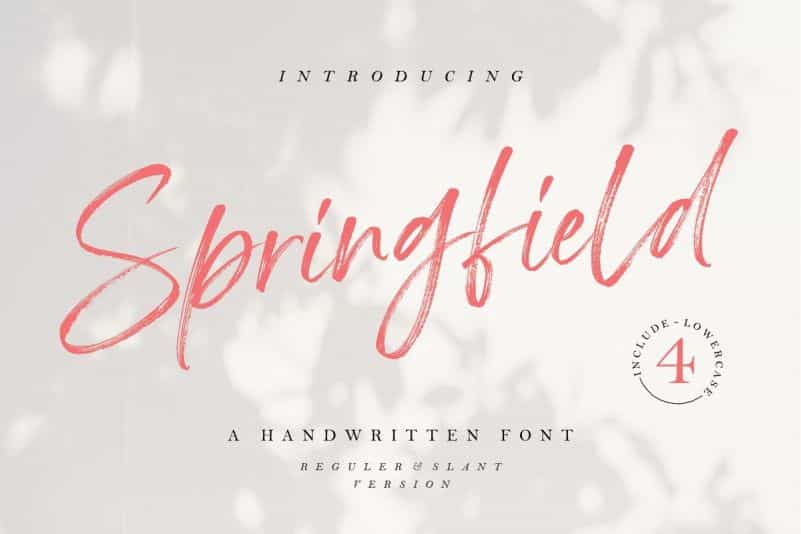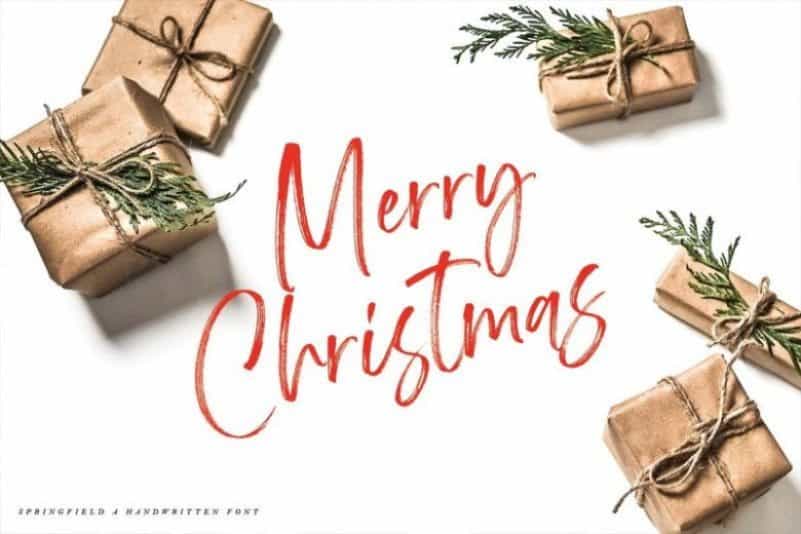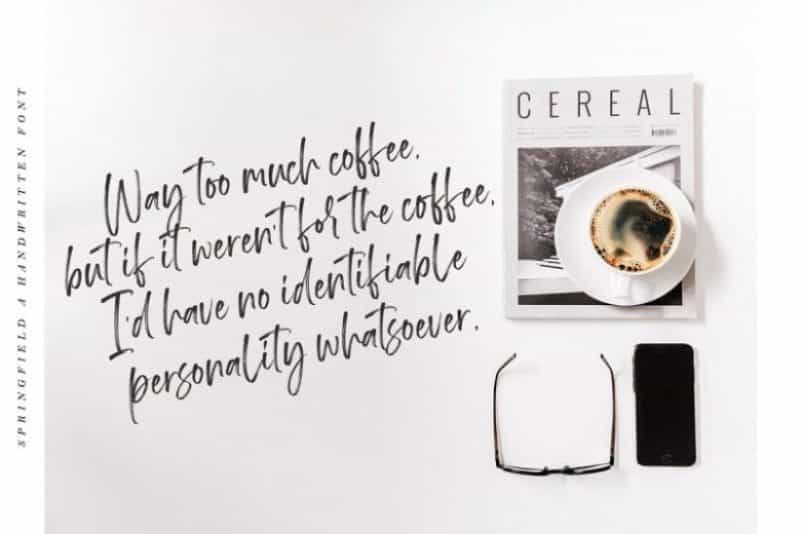
The font that is used in this post is called Springfield Font and it is developed and distributed by Megi Satyo Widodo. It is a handwritten font with a firm texture element, and a more textured feeling than the previous two fonts. It is done by writing directly on the paper with a type of brush that is coarse and this helps in achieving a strong and uniform texture on the paper.